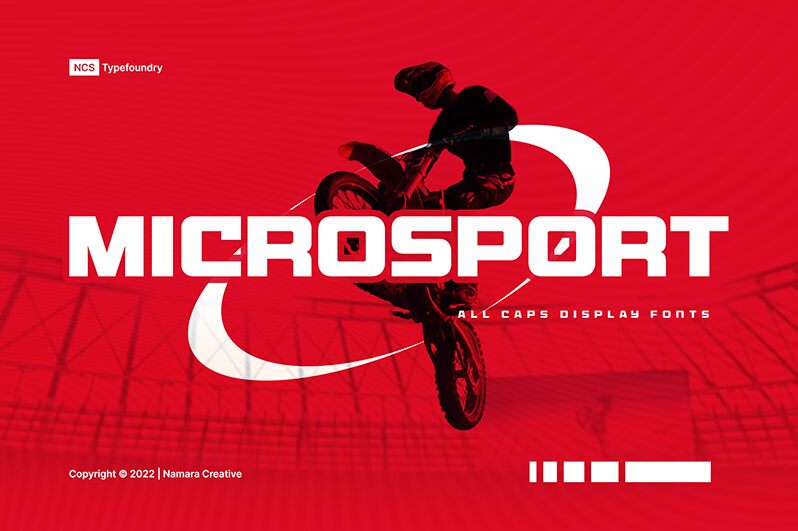
Microsport Bold emerges from the creative minds at Namara Creative as a powerhouse sans serif that commands attention. Its bold strokes and expanded form radiate confidence, making it a standout choice for designers looking to make a strong statement. The font's clean lines and open spaces give it a modern flair, with an uncluttered look that ensures legibility even at larger sizes.
Ideal for branding, advertising, and headline use, Microsport Bold effortlessly complements visuals that demand impact without sacrificing clarity. Whether splashed across a billboard or anchoring a dynamic website, this font is versatile enough to adapt to various design landscapes while maintaining its distinctive character.
Bring strong atmosphere in modern style for your projects. This font perfect for headline, general advertising, packaging, sport logo / branding and more.
Make it Simple but have an Significant Impacts